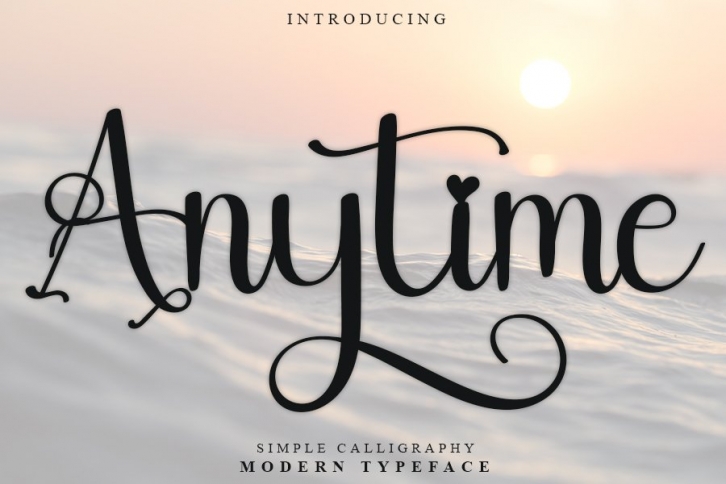
Anytime is a trendy and unique font with an authentic style. It was designed by FreshType INK and it's a great choice for creative people who need such a font. It was released on September 22, 2022 and the file size is 9.99 MB. Anytime will add an organic vibe to any design idea!